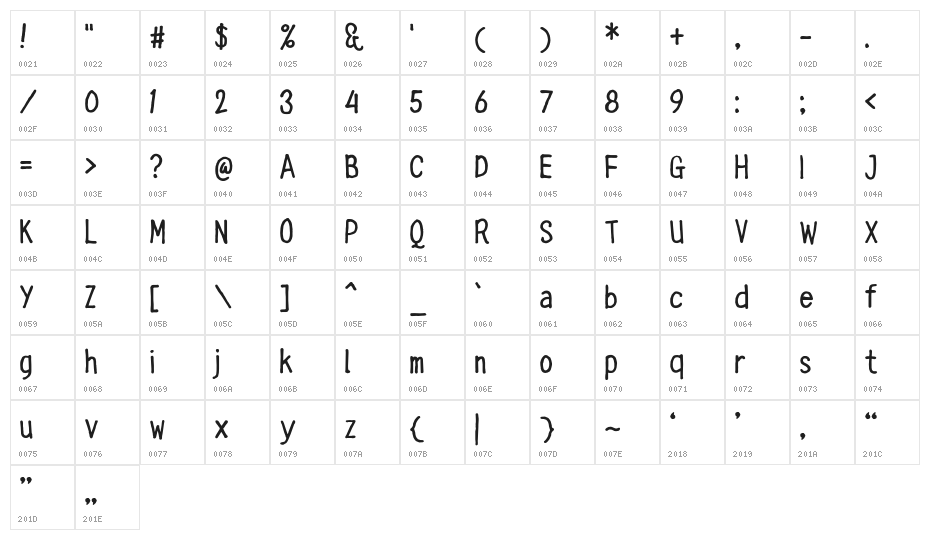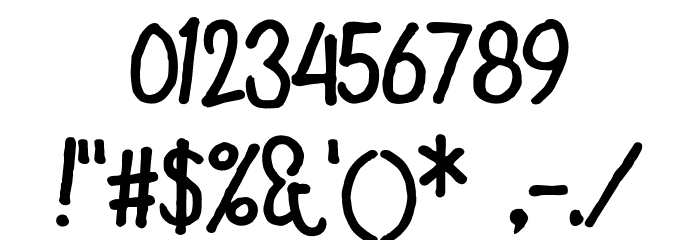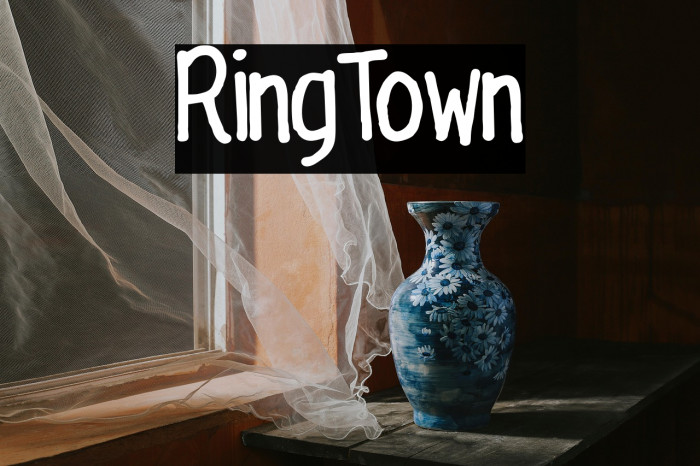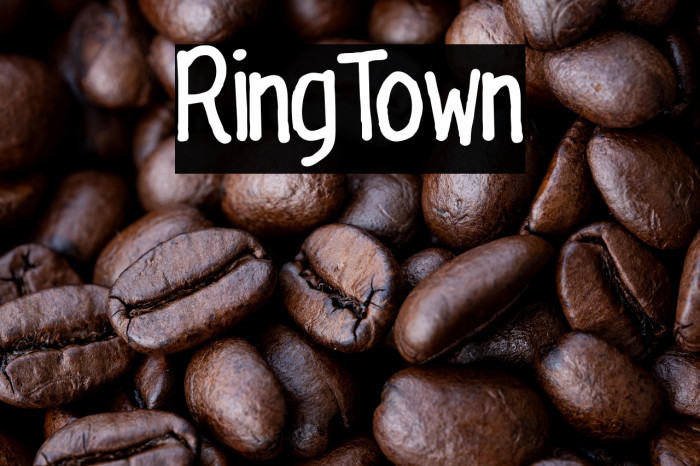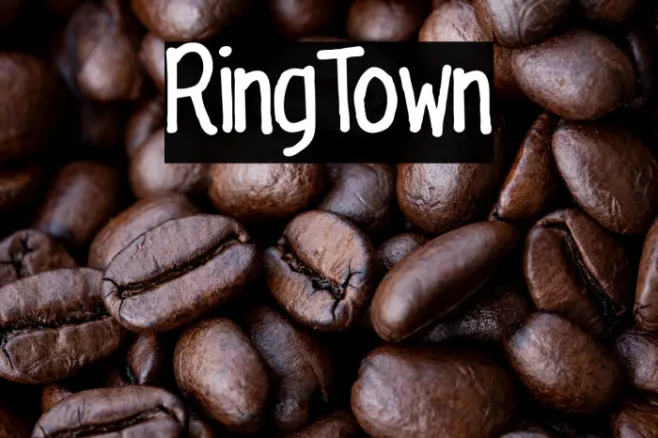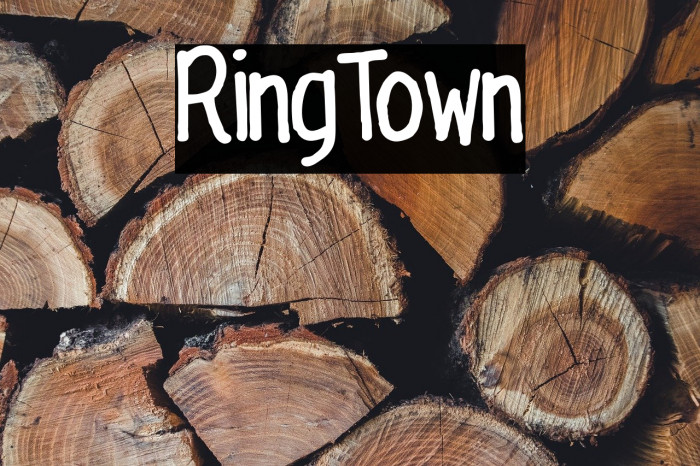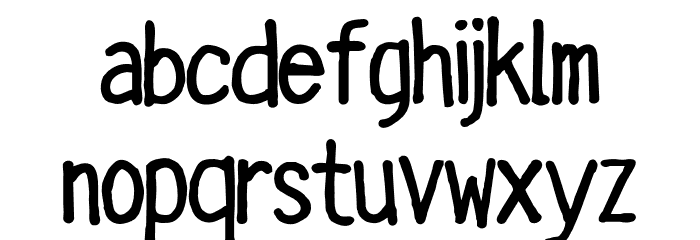
RingTown Font
RingTown Description
This font features a playful and informal handwritten style, characterized by its uneven strokes and slightly irregular letterforms. The uppercase and lowercase letters maintain a consistent flow, giving it a casual and approachable appearance. The numbers and special characters follow the same style, ensuring a cohesive look across all text elements. The font's organic feel makes it suitable for projects that require a personal touch or a relaxed vibe.
| Proposed Projects | Ideal for greeting cards, children's books, casual branding, and social media graphics. |